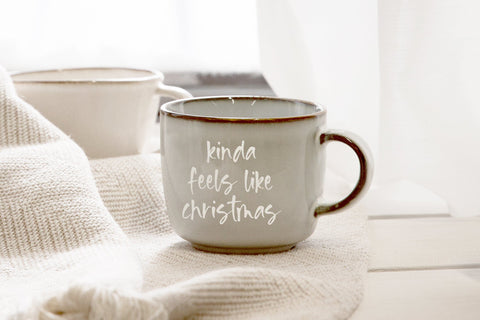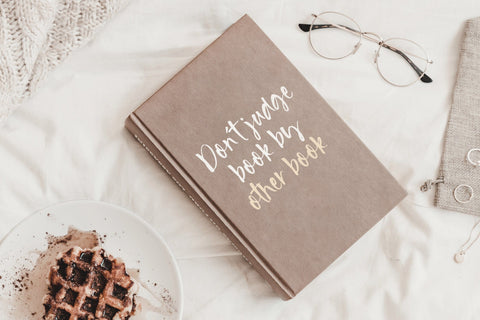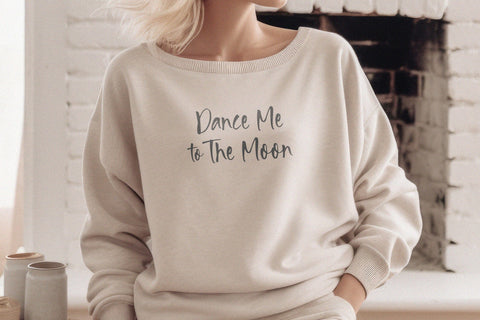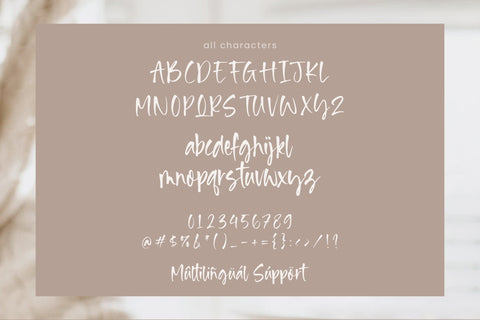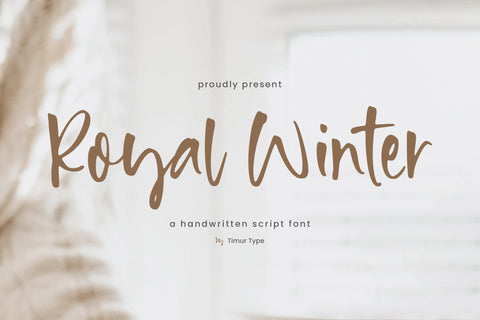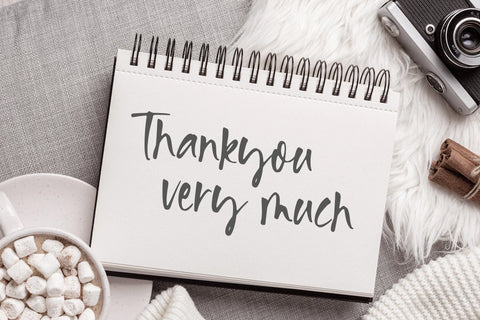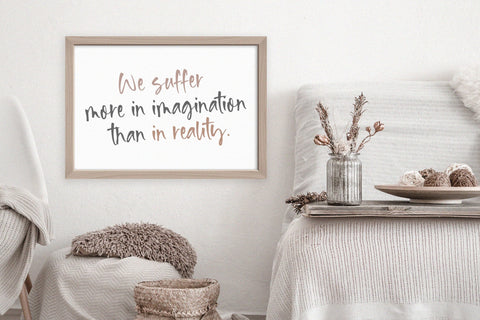
Royal Winter - Handwritten Font
Introduced by Timur type
Proudly Present Royal Winter
Royal Winter is a Handwritten script font that is modern and fresh, and will bring a warm and inviting feel to your business. Take advantage of the fonts and experience the magic for yourself.
Royal Winter font is perfect for product packaging, branding project, megazine, social media, wedding, or just used to express words above the background.
stylistic Alternate set
Royal Winter font also multilingual support.